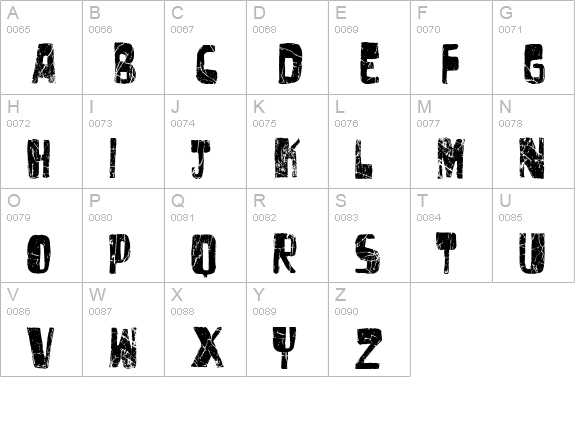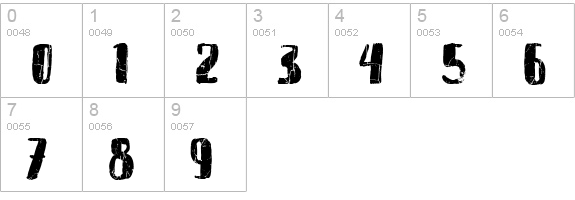
vtks untitled Font Details
VTKS Untitled font is a unique and stylish typeface that exudes creativity and modernity. Its edgy design and bold strokes make it stand out in any project, adding a touch of individuality and flair. This font is perfect for branding, logo design, posters, and other creative endeavors. Best of all, VTKS Untitled font is free to download at FontsMarket.com, allowing designers and creatives to access this amazing typeface without any cost. Don't miss out on this opportunity to enhance your designs with the striking VTKS Untitled font. Download it today and let your creativity shine!